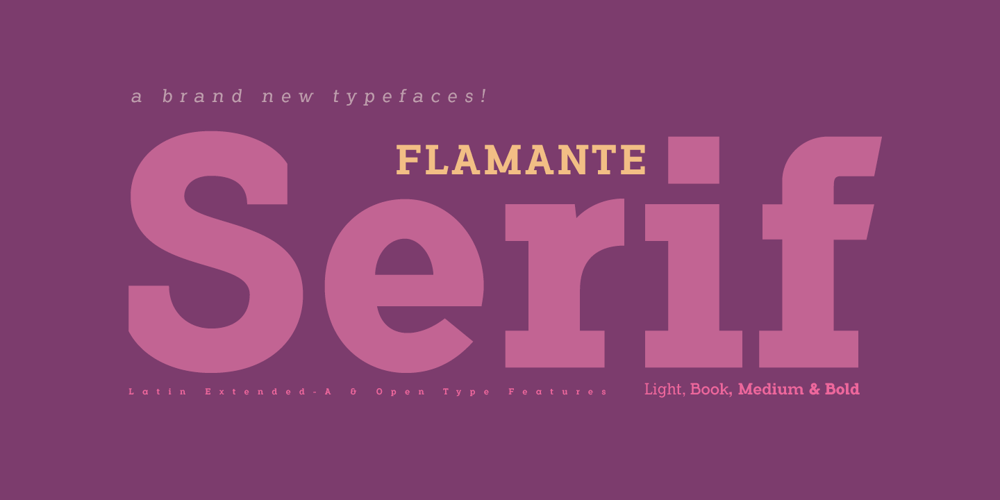
Flamante Serif Font Family was designed by Fernando Haro and published by deFharo. Flamante Serif contains 8 styles and family package options. Flamante Serif is a family of 8 typographies with thick square serifs of the slab type, also known by the Egyptians, which are released with four weights: Light, Book, Medium and Bold and their corresponding italic versions. They are heiress fonts of the Egyptian types arisen at the beginning of the S. XIX and descendants of the fonts “Flamante Sans” Special corporate typographies to design resounding titles on any advertising medium, also for any type of publication like magazines or newspapers. They include the Bitcoin symbol. ================================== OpenType Features: Standard Ligatures, Additional languages, All Alternates, Alternate Annotation Forms, Superscript, Kerning, Superiors, Capital Spacing, Localized Forms, Superior letters, Discretionary Ligatures, Subscript, Fractions, Slashed Zero, Inferiors, Extended Fractions, Scientific Inferiors, Ordinals, Denominators, Oldstyle Figures, Numerators, Historical Forms, Historical Ligatures. – 500 glyphs. Latin Extended-A • OTF & TTF.